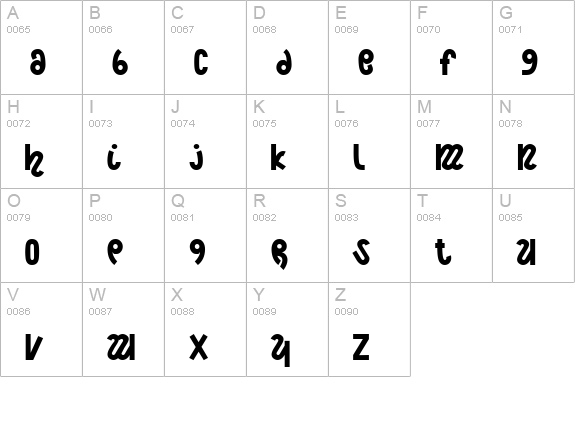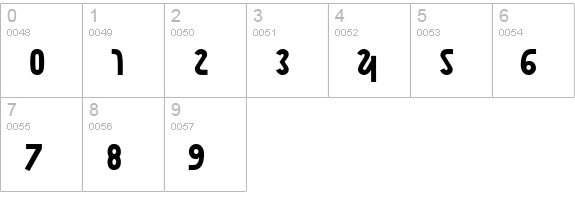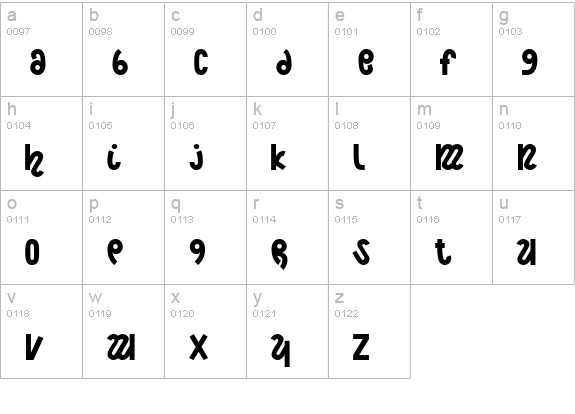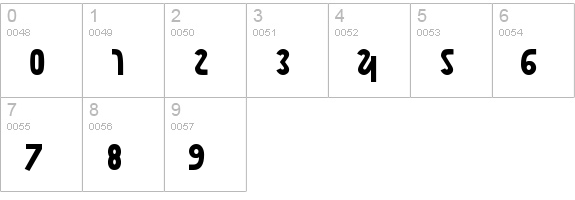
Night Court Font Details
Night Court font is a sleek and modern typeface that exudes sophistication and elegance. Its clean lines and sharp edges make it perfect for adding a touch of class to any design project. The font features a unique combination of traditional and contemporary elements, giving it a timeless appeal. What makes Night Court font even more appealing is that it is available for free download at FontsMarket.com. This means that you can easily add this stylish font to your collection without having to spend a dime. Whether you're working on a professional project or a personal creative endeavor, Night Court font is sure to elevate your work to the next level.